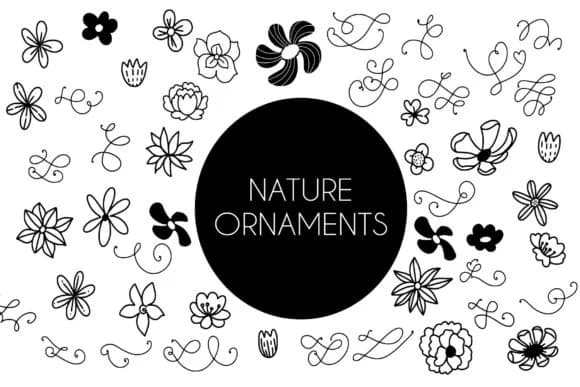
1 / 4About Nature Ornaments Font
This font brings botanical warmth to any creative project you approach. Nature Ornaments by goodigital is a dingbats collection packed with hand-drawn floral elements and vintage-inspired botanical illustrations that feel both timeless and fresh. The set includes delicate flowers, ornamental leaves, decorative dividers, and scattered botanical patterns that work beautifully in specific applications.
Think decorative elements for wedding invitation suites where you need to add organic flair around text, botanical corner details for DIY kraft labels on homemade jams or natural skincare lines, nature-themed borders for scrapbooking layouts, or botanical illustrations to break up long text in printed zines and artist portfolios. The vintage character also suits retro stationery design and spring-themed event graphics. Because these are dingbats (symbol fonts), you can scale them freely without loss of quality, and most characters map to standard keyboard shortcuts for quick access. The collection offers enough variety to mix and match elements across a single project without repetition feeling forced.
Pair Nature Ornaments with a clean, readable serif or sans-serif for your body text, which keeps the overall design from feeling too busy while letting the botanical ornaments shine as decorative accents. Get it from Creative Fabrica and start building designs with these charming botanical touches.
Nature Ornaments Font is a versatile dingbats font that works for both headings and body text. Pair it with a contrasting sans-serif or serif font to add visual interest and a clear distinction between titles and body copy.
Nature Ornaments Font